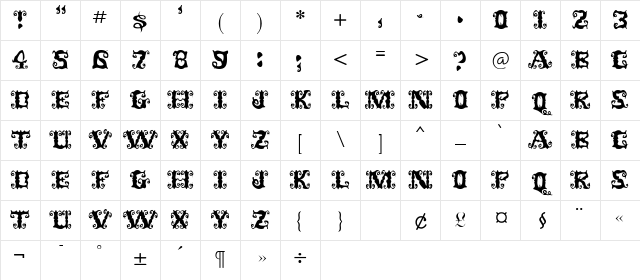
Senorita Regular
Design Context for Senorita
Senorita is a composed and adaptable typeface that performs quietly and consistently across a wide range of design contexts.